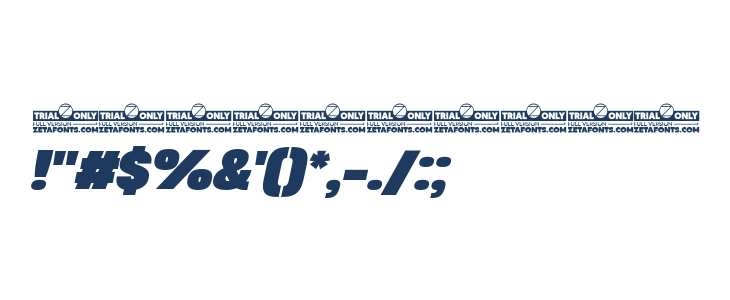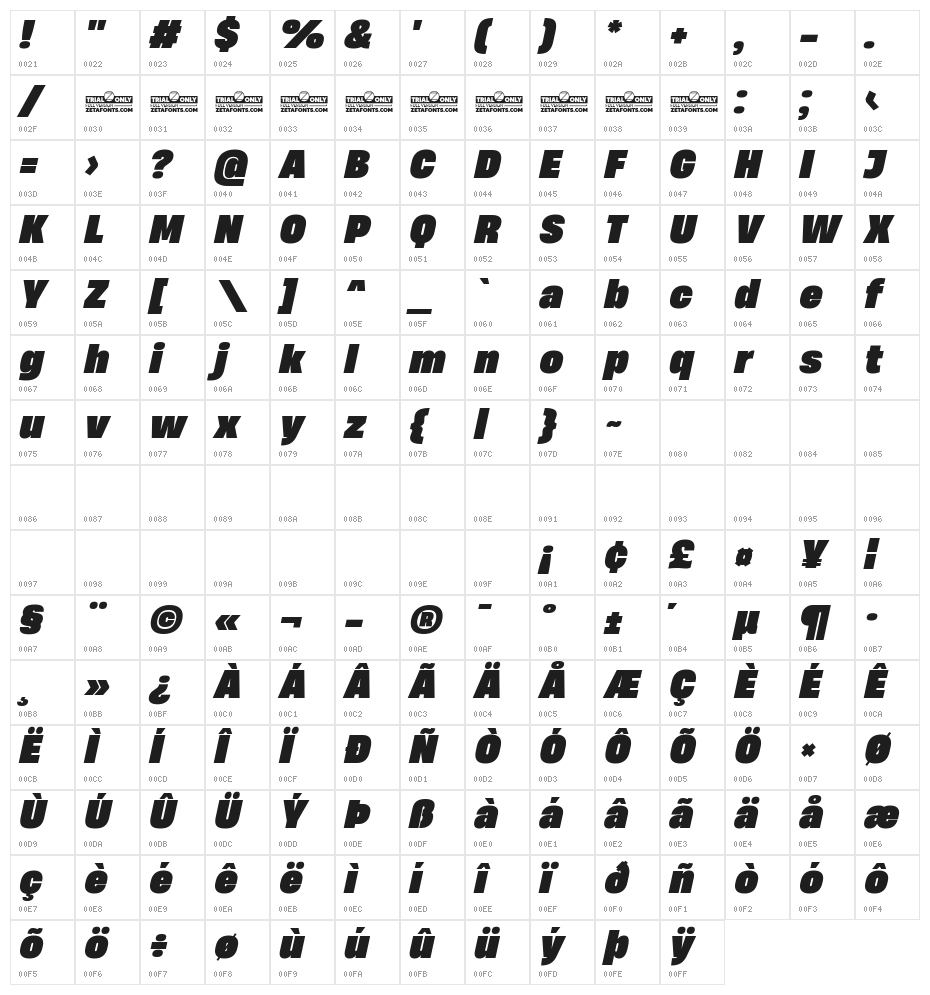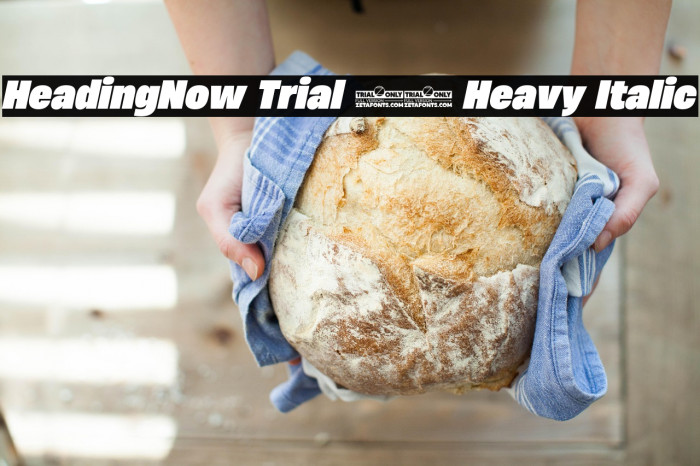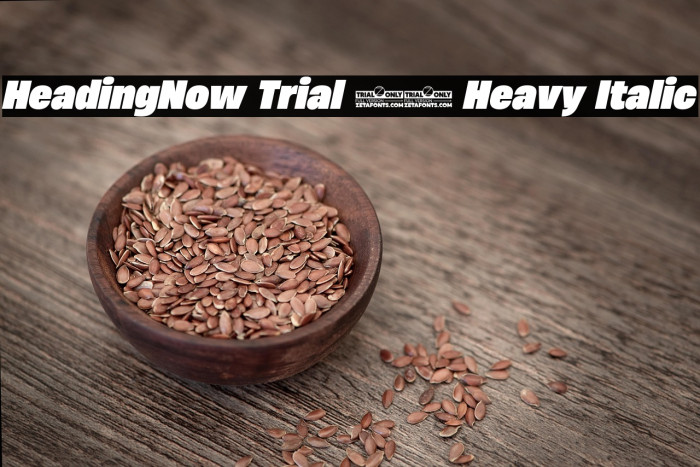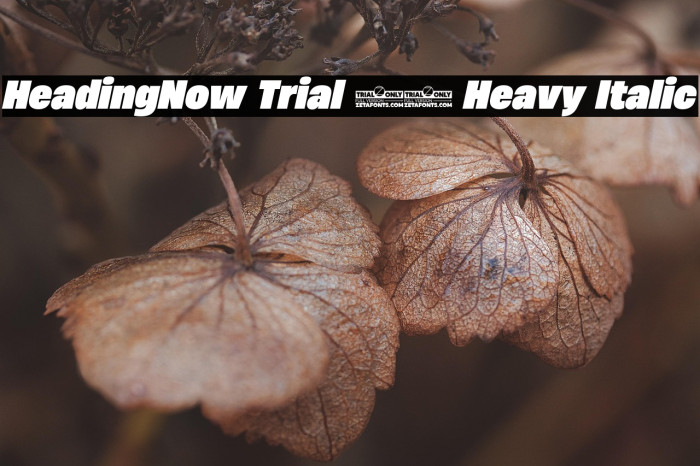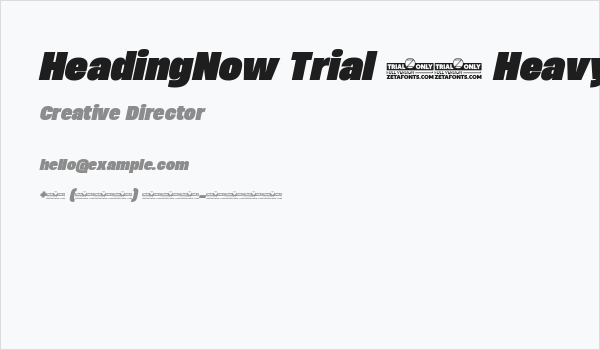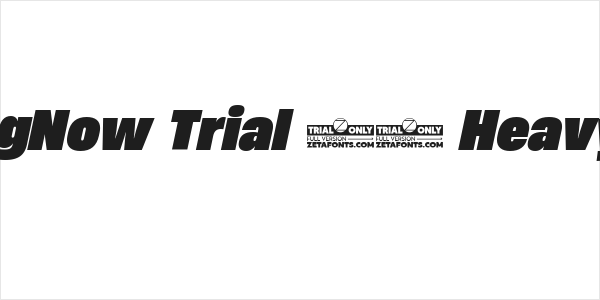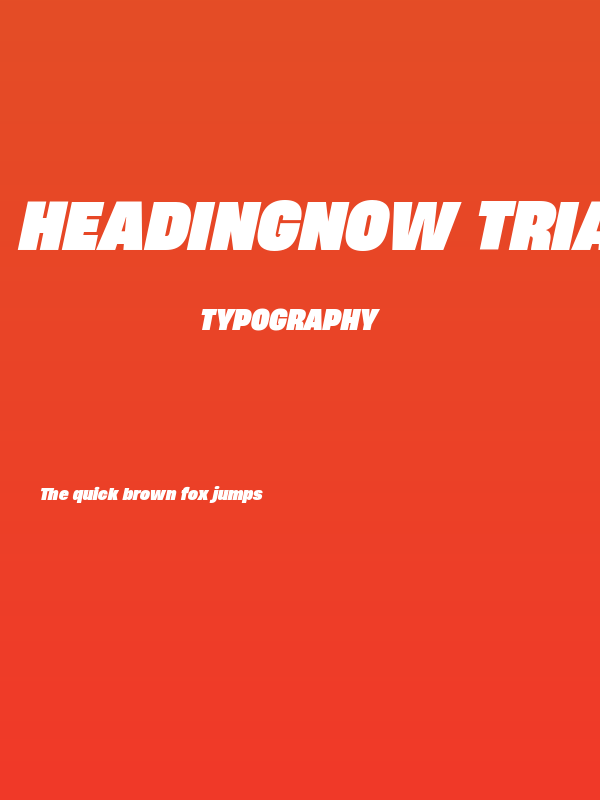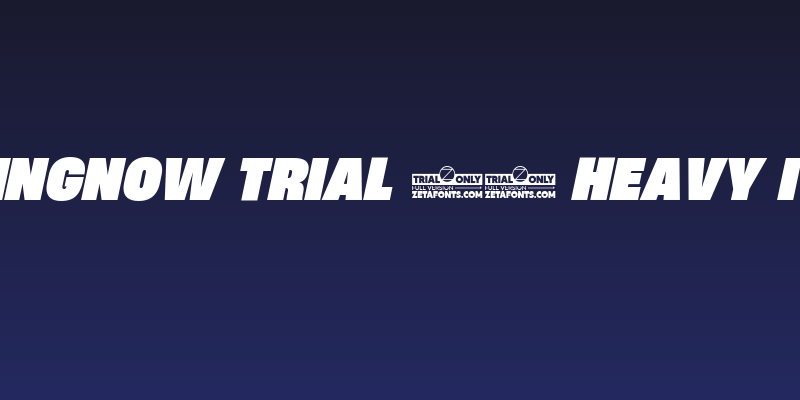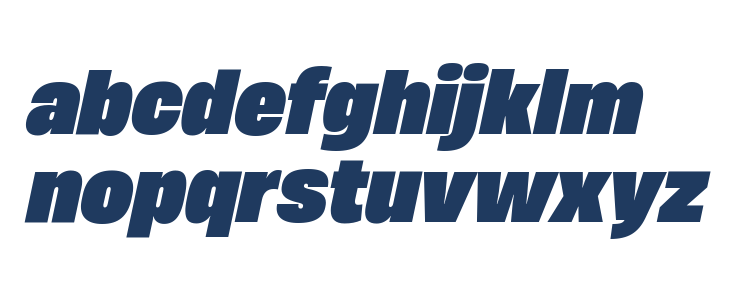
HeadingNow Trial 68 Heavy Italic Font
HeadingNow Trial 68 Heavy Italic Description
This font exhibits a bold and assertive style with a heavy weight and italic slant, making it highly impactful and attention-grabbing. The characters are wide and robust, with a strong presence that commands attention. The italic angle adds a dynamic and forward-moving feel, enhancing its modern appeal. The uppercase and lowercase letters maintain consistent thickness, contributing to a cohesive look. The numerals and special characters are equally bold, ensuring uniformity across all text elements. This font is designed to stand out, making it ideal for projects that require a strong visual impact.
| Proposed Projects | Ideal for headlines, posters, branding, and advertising where a strong visual impact is needed. |